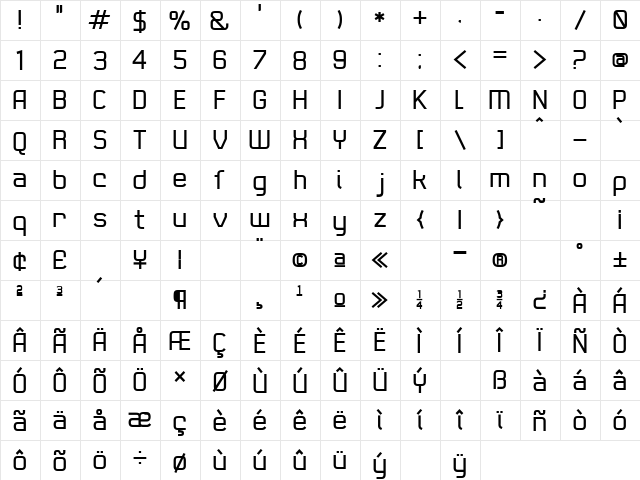
21st Bold
Design Context for 21st Typeface
21st takes a measured approach to typography — its balanced proportions and neutral character make it a reliable workhorse for both digital and print work. Its bold stroke weight gives it real presence on the page.